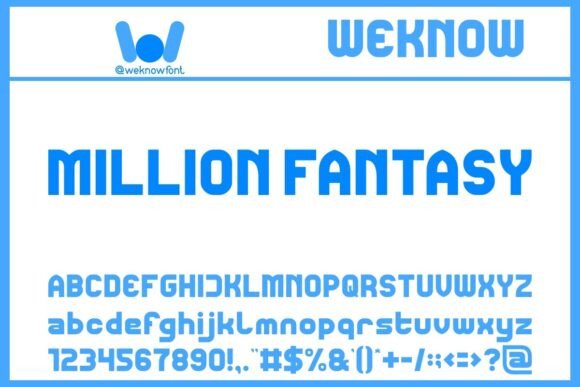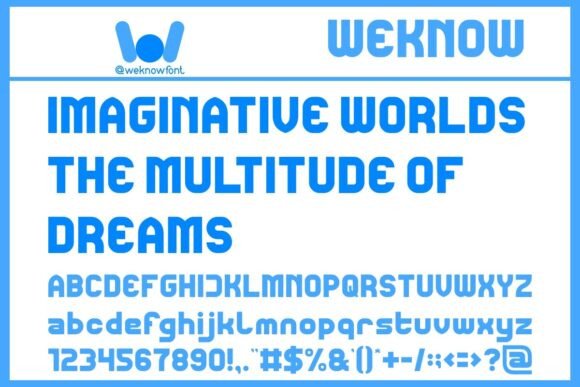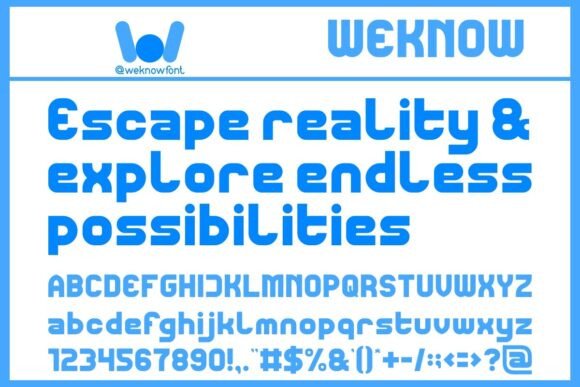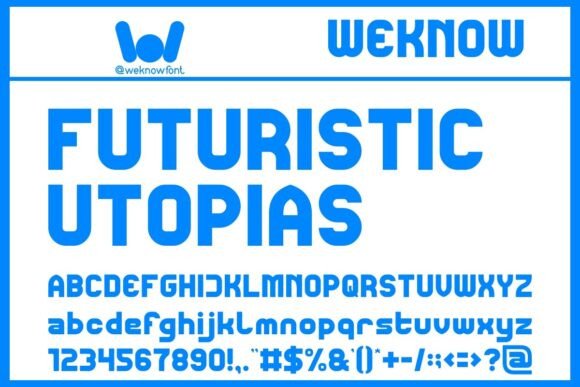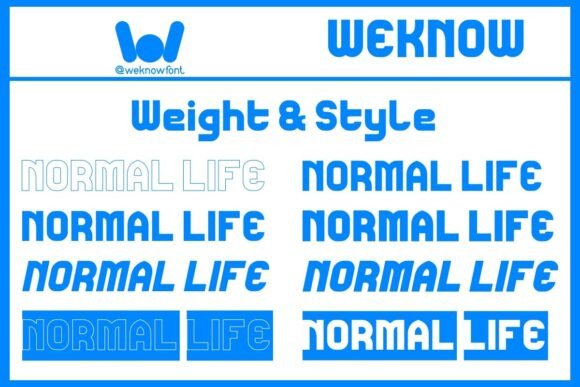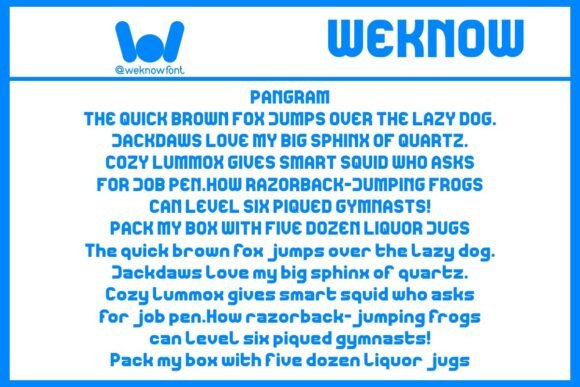
Introduction to Normal Life Font
Introducing “Normal Life,” a versatile Sans Serif font that exudes futuristic dimensions with a stroke of bold clarity.
This display font, with a distinctive sci-fi aesthetic, is perfectly suited for creating commanding headlines and influencing brand identities Its strong and smooth temperament makes it a fitting choice for the apparel industry.